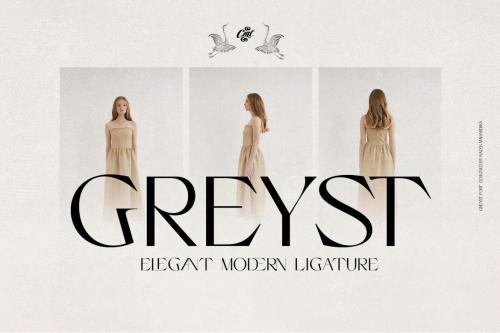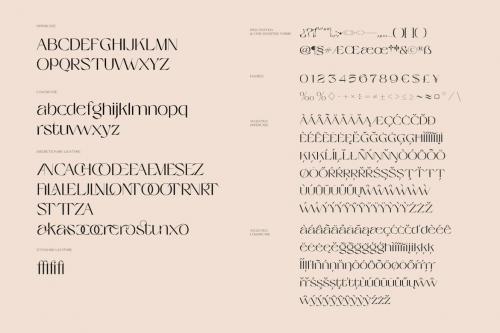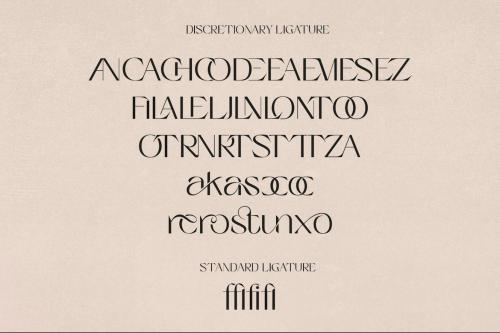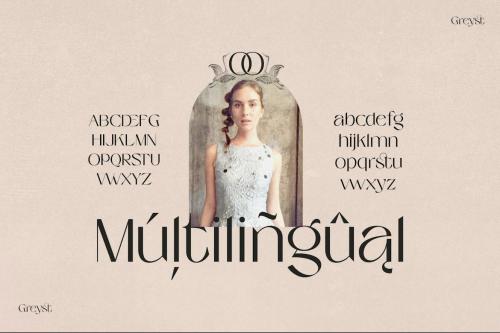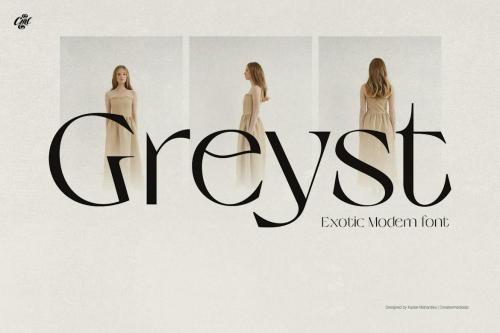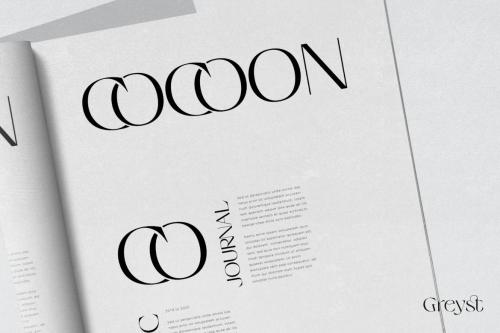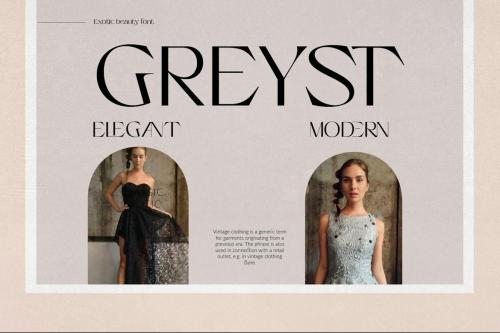
灰斯特 - 精致连字字体
Greyst - Elegant Ligature font
Simple and unique display font with dozens of ligatures. This versatile font is best for branding, webdesign project, logo and much more with multilingual support, numbers, and currency symbols.